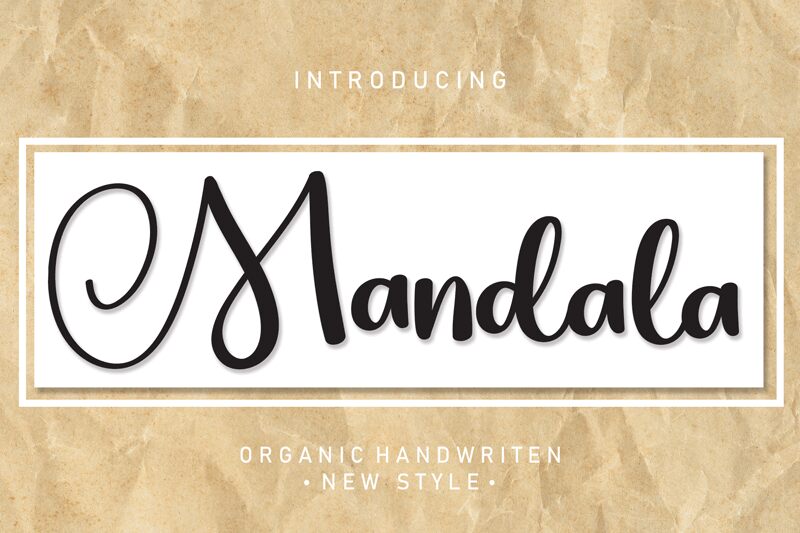
Mandala
Mandala, a calligraphy-inspired font by scratchones, exudes an air of elegance and sophistication. With its graceful brush strokes and flowing curves, this font is perfect for capturing attention in wedding invitations and other formal event materials. Its versatility shines through as it effortlessly complements luxury branding projects, creating a sense of exclusivity and refinement. The Mandala typeface's semi-bold width adds depth to headlines and titles, making it ideal for magazine covers or editorial layouts. Elevate your designs with the timeless beauty of Mandala, meticulously crafted to leave a lasting impression.